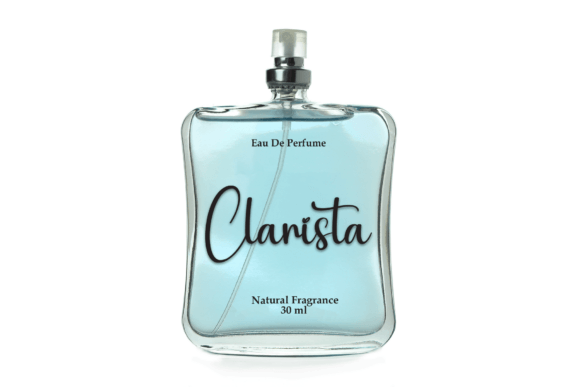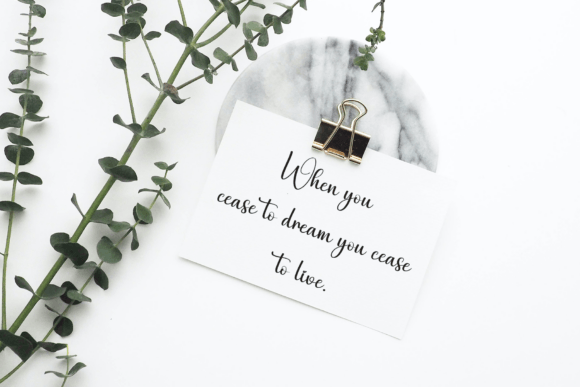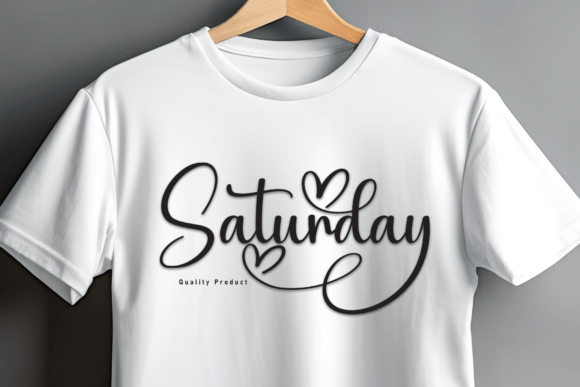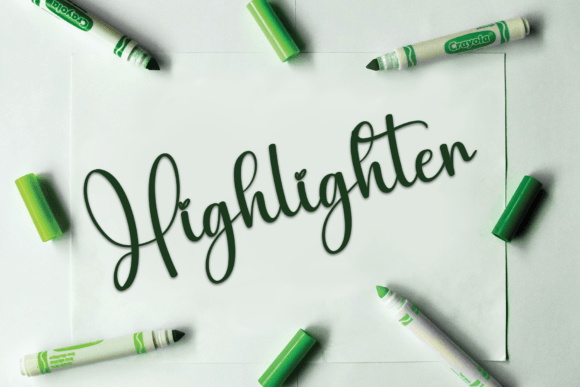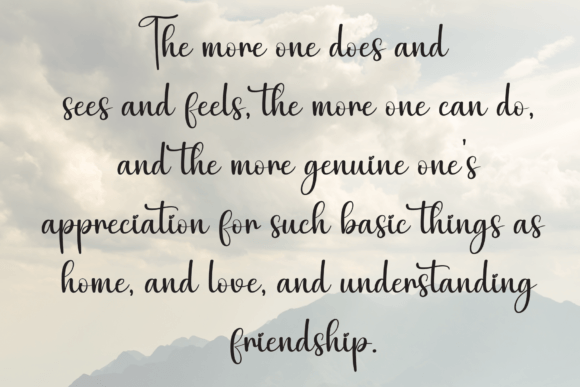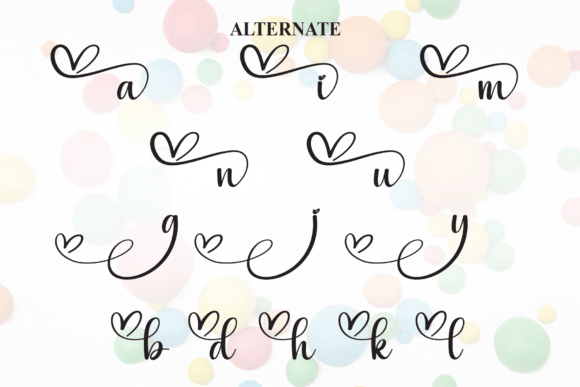
Bubblegum Font: Elevate Your Designs with Elegance and Style
Are you looking for a font that adds a touch of sophistication and whimsy to your designs? Look no further than the Bubblegum font, a stylish and incredibly elegant script font that is perfect for a variety of creative projects. In this article, we’ll explore the features and benefits of the Bubblegum font, and show you how to make the most of this beautiful font in your designs.
What is Bubblegum Font?
Bubblegum is a stylish and incredibly elegant script font that is designed to add a touch of whimsy and romance to your designs. With its flowing lines and delicate curves, this font is perfect for creating beautiful and eye-catching designs that stand out from the crowd. Whether you’re designing wedding invitations, thank you cards, quotes, greeting cards, logos, business cards, or any other type of design that needs a handwritten touch, Bubblegum font is the perfect choice.
Key Features of Bubblegum Font
So, what makes Bubblegum font so special? Here are just a few of its key features:
- Elegant and sophisticated design: Bubblegum font has a beautiful, flowing design that is both elegant and sophisticated.
- Perfect for handwritten designs: With its delicate curves and flowing lines, Bubblegum font is perfect for creating designs that look like they were written by hand.
- Versatile: Bubblegum font can be used for a wide range of designs, from wedding invitations and greeting cards to logos and business cards.
- Easy to read: Despite its elegant design, Bubblegum font is still easy to read, making it perfect for designs that need to convey a message.
How to Use Bubblegum Font in Your Designs
Now that we’ve covered the features and benefits of Bubblegum font, let’s take a look at how to use it in your designs. Here are a few ideas to get you started:
- Wedding invitations: Bubblegum font is perfect for wedding invitations, adding a touch of romance and elegance to your design.
- Greeting cards: Use Bubblegum font to create beautiful and eye-catching greeting cards for special occasions like birthdays, anniversaries, and holidays.
- Logos and business cards: Bubblegum font can also be used to create elegant and sophisticated logos and business cards that will help you stand out from the crowd.
- Quotes and posters: Use Bubblegum font to create beautiful and inspiring quotes and posters that will grab attention and leave a lasting impression.
Tips for Getting the Most Out of Bubblegum Font
Here are a few tips for getting the most out of Bubblegum font:
- Use it with contrasting colors: Bubblegum font looks stunning when paired with contrasting colors, so don’t be afraid to experiment with different color combinations.
- Experiment with different sizes: Bubblegum font can be used at a variety of sizes, from large and bold to small and delicate.
- Pair it with other fonts: Bubblegum font can be paired with other fonts to create a unique and eye-catching design.
In conclusion, Bubblegum font is a beautiful and elegant script font that is perfect for adding a touch of whimsy and romance to your designs. With its flowing lines and delicate curves, this font is perfect for creating beautiful and eye-catching designs that stand out from the crowd. Whether you’re a designer, crafter, or DIY enthusiast, Bubblegum font is a great choice for any project that needs a handwritten touch.